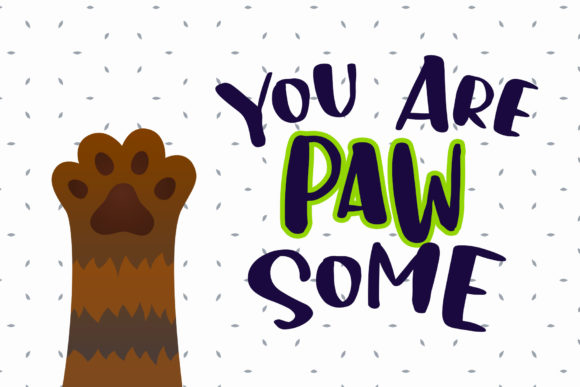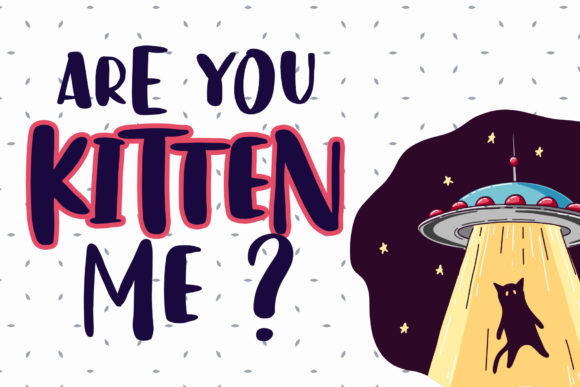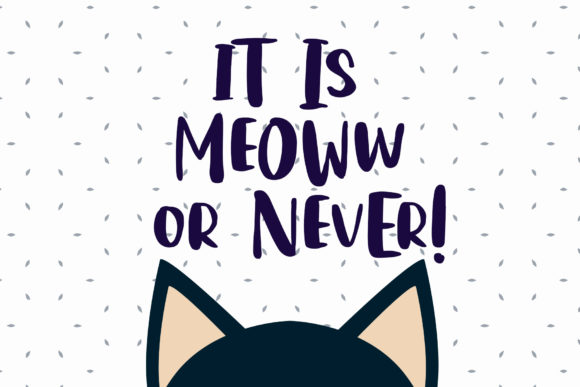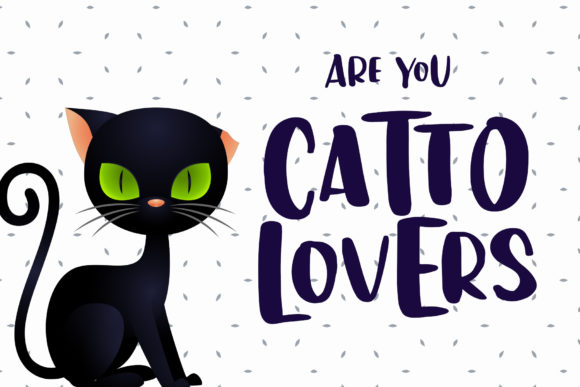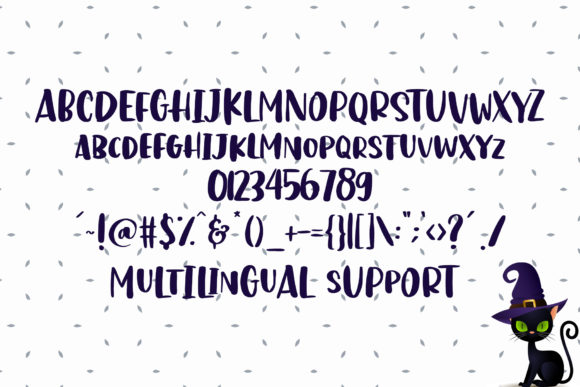
Hello Catto Font: The Ultimate Choice for Creative Projects
Hello Catto is a beautiful, handmade font that has captured the hearts of designers and crafters alike. With its friendly and approachable feel, this font is perfect for a wide range of creative projects, from social media graphics to DIY crafts. In this article, we’ll take a closer look at Hello Catto and explore its features, uses, and benefits.
A Cute and Casual Handwritten Font
Hello Catto is a handwritten font that exudes warmth and friendliness. Its casual, laid-back vibe makes it perfect for projects that require a personal touch. Whether you’re creating a social media post, a blog graphic, or a DIY craft, Hello Catto is sure to add a touch of personality to your design.
Gorgeous Swashes and Ligatures
One of the standout features of Hello Catto is its stunning swashes and ligatures. These elegant flourishes add a level of sophistication and elegance to your designs, making them perfect for projects that require a bit of flair. With Hello Catto, you can create beautiful calligraphy scripts, stunning social media graphics, and eye-catching DIY projects.
Hello Catto is an incredibly versatile font that can be used for a wide range of projects. Whether you’re a designer, a crafter, or a social media influencer, this font is sure to become a favorite. Here are just a few ideas for using Hello Catto:
- Social media graphics: Use Hello Catto to create stunning Instagram posts, Facebook graphics, and Twitter headers.
- DIY projects: Add a personal touch to your DIY crafts, such as handmade cards, gift tags, and scrapbook pages.
- Calligraphy scripts: Use Hello Catto to create beautiful calligraphy scripts for special occasions, such as weddings, birthdays, and holidays.
- Branding: Use Hello Catto to create a unique and recognizable brand identity for your business or personal brand.
Hello Catto is a dream come true for designers and crafters. With its gorgeous swashes and ligatures, this font is perfect for creating stunning designs and crafts. Here are just a few reasons why designers and crafters love Hello Catto:
- Ease of use: Hello Catto is easy to use, even for those with limited design experience.
- Customization: With its range of swashes and ligatures, Hello Catto can be customized to fit your unique style and design needs.
- Flexibility: Hello Catto can be used for a wide range of projects, from digital designs to handmade crafts.
Tips for Using Hello Catto
Here are a few tips for getting the most out of Hello Catto:
- Experiment with different swashes and ligatures to find the perfect combination for your design.
- Use Hello Catto in combination with other fonts to create a unique and eye-catching design.
- Don’t be afraid to get creative and try new things – Hello Catto is a versatile font that can handle a wide range of design styles.